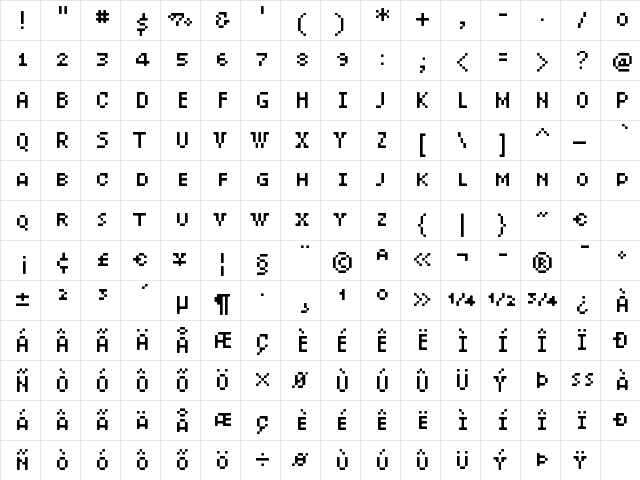
LRPlusNine NarrowSC
Design Context for LRPlusNine Typeface
LRPlusNine is a composed and adaptable typeface that performs quietly and consistently across a wide range of design contexts. Its narrow stance lets it pack a punch even in space-constrained designs.